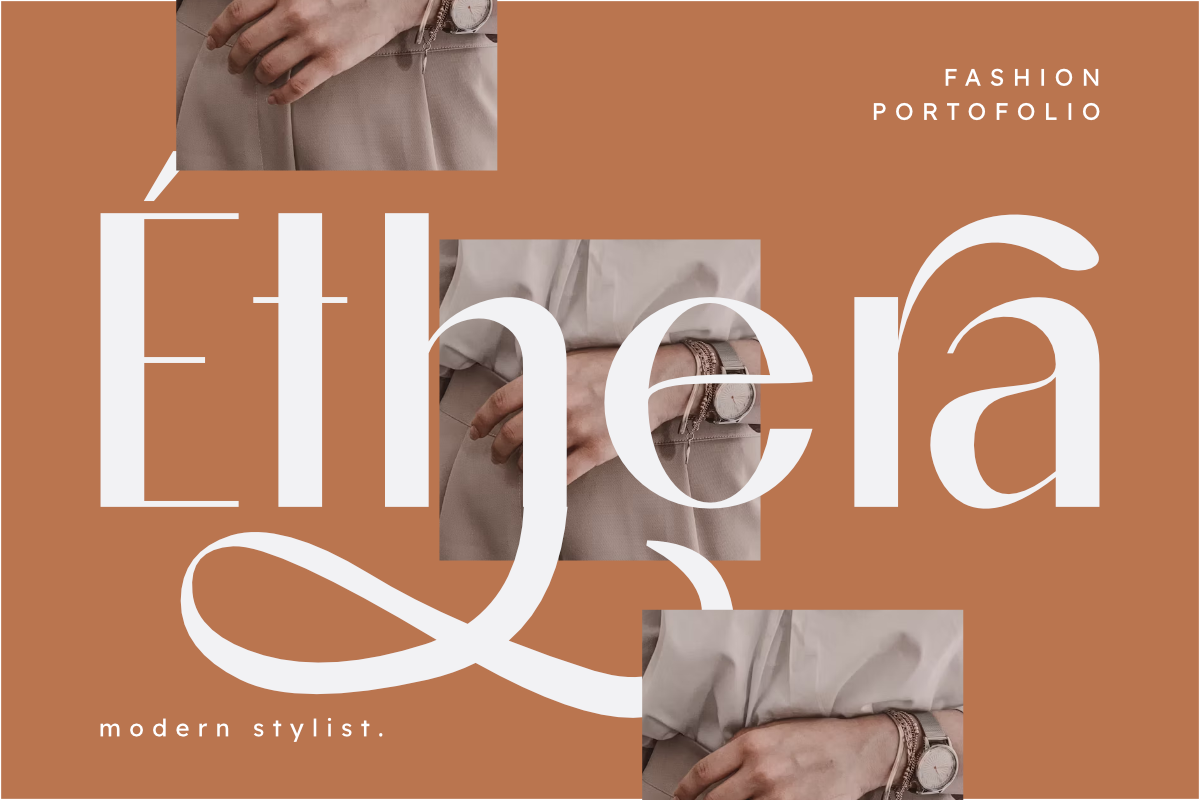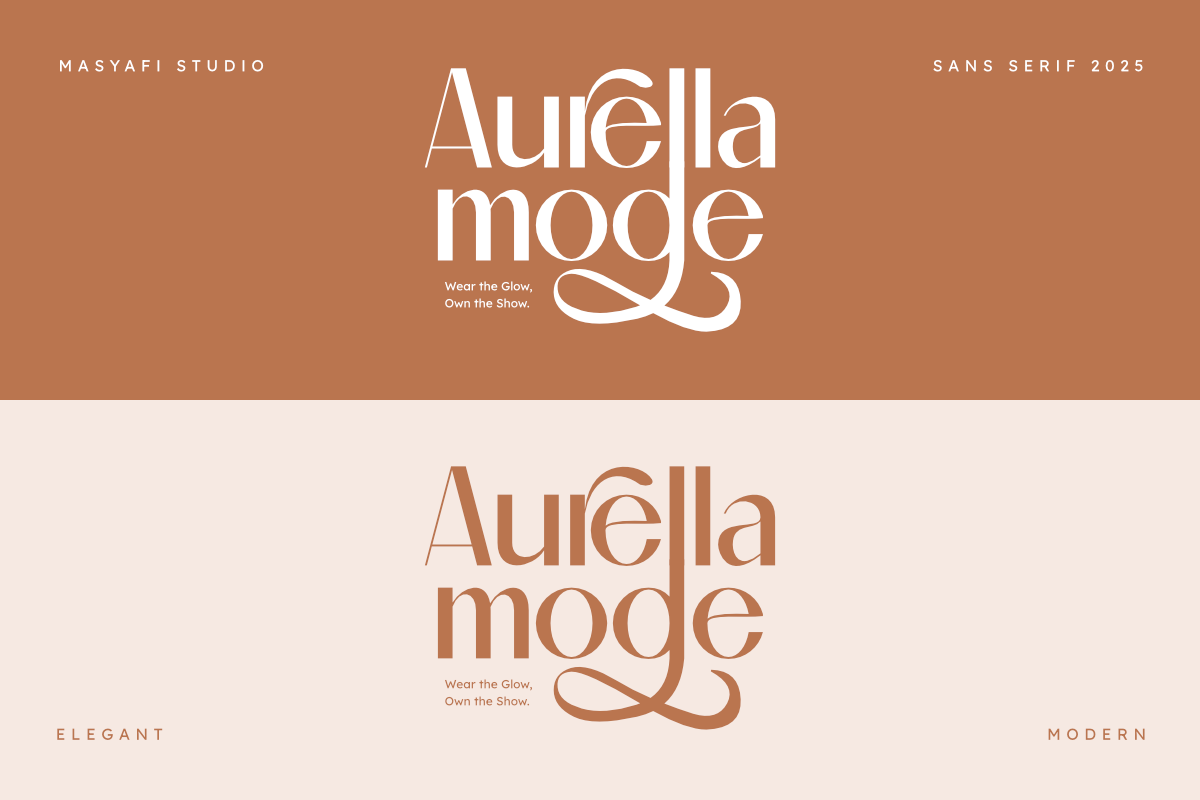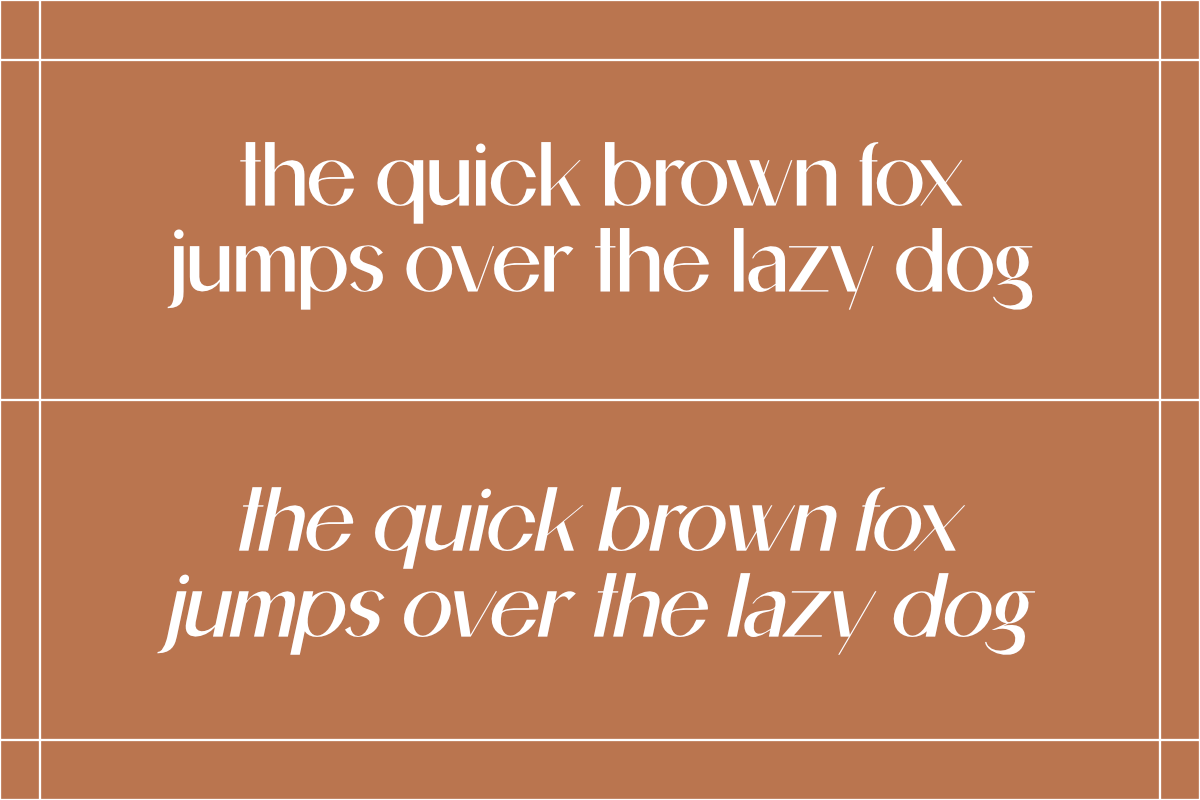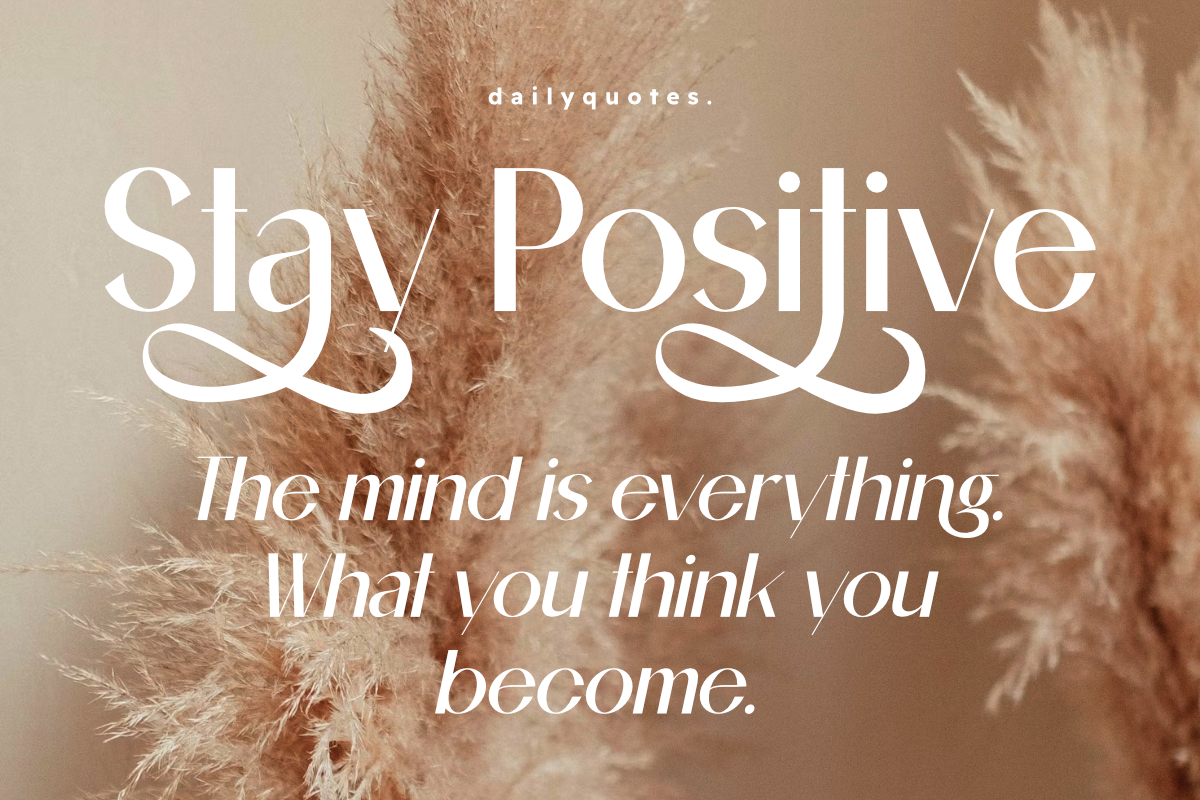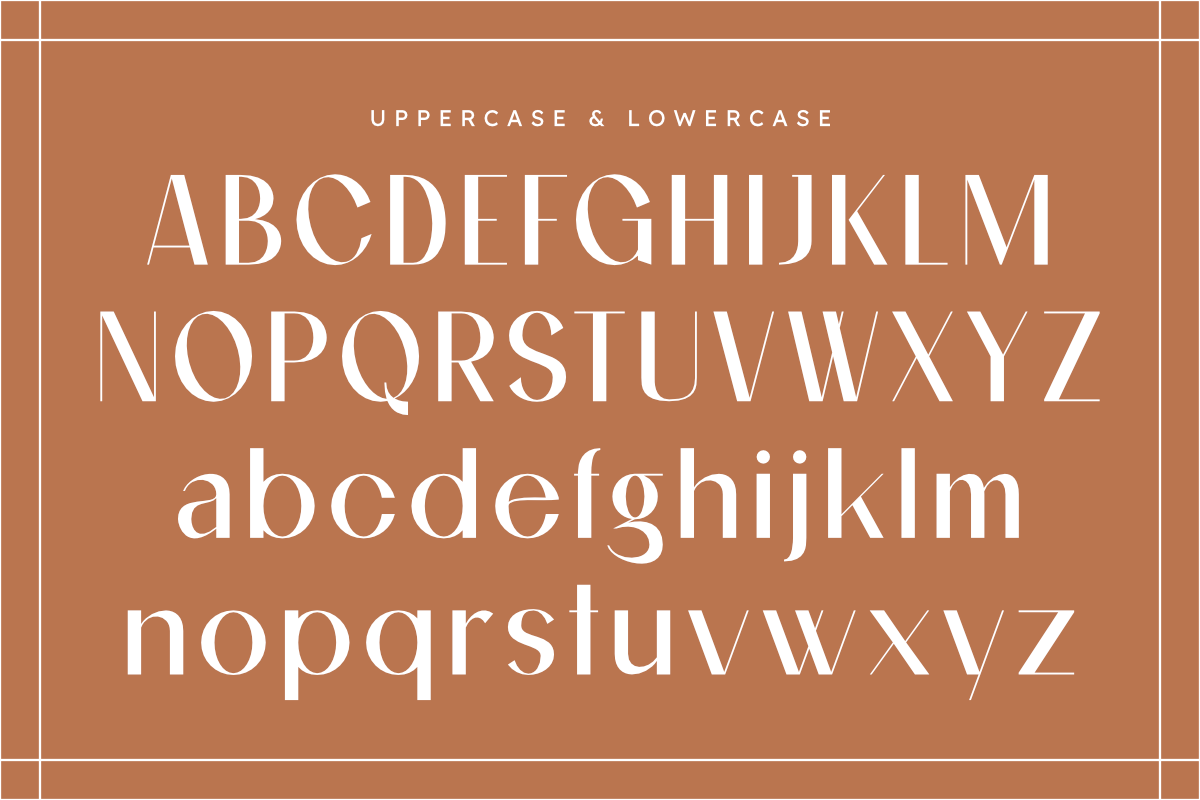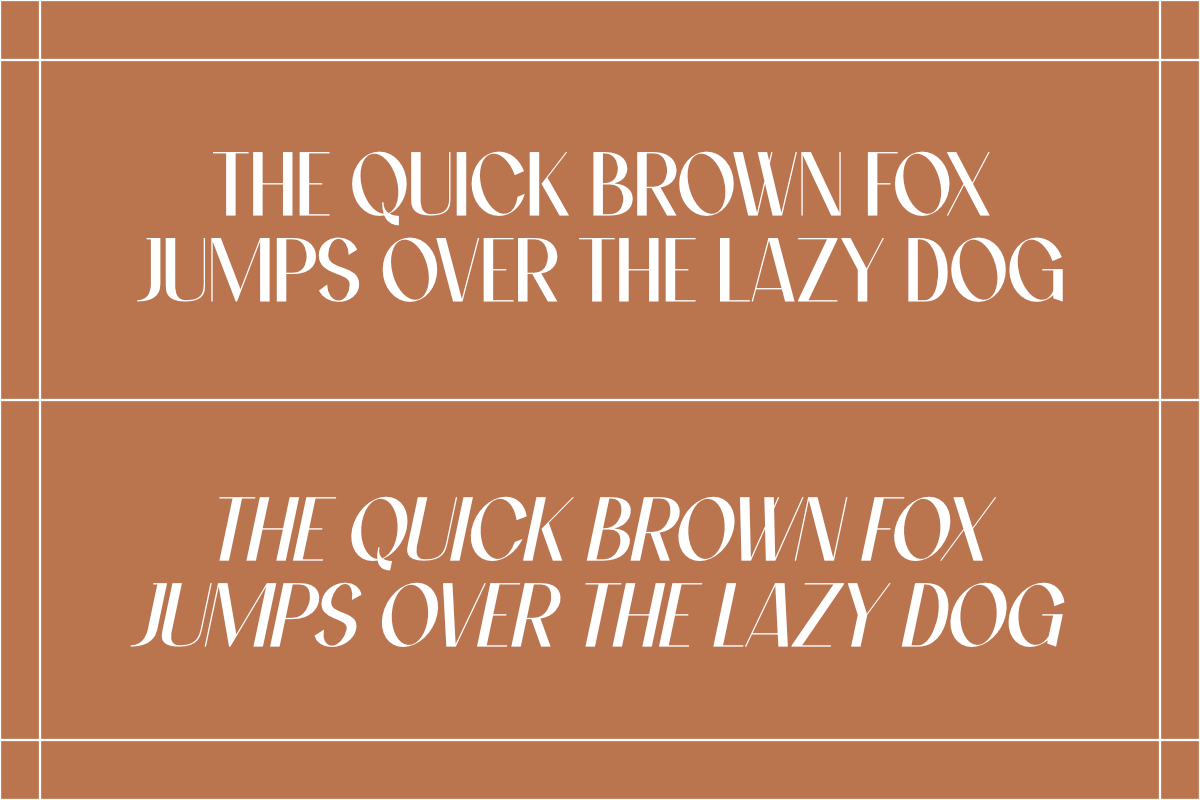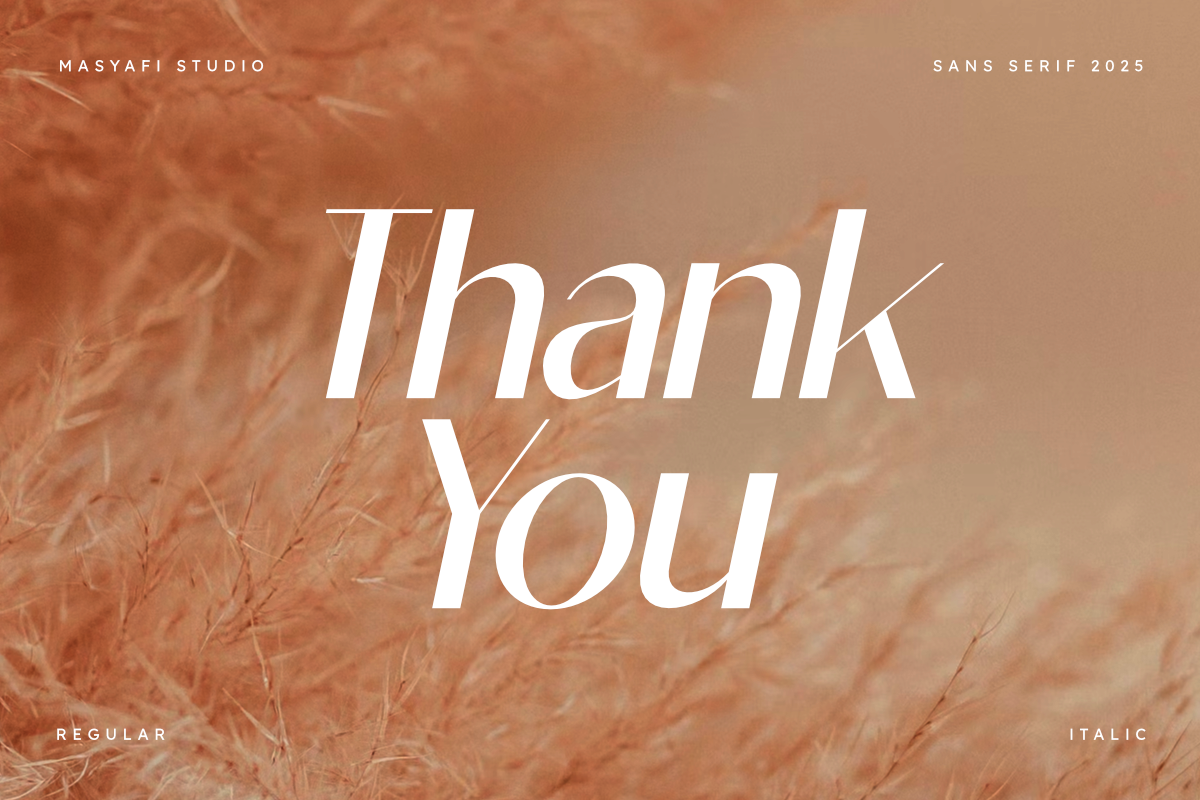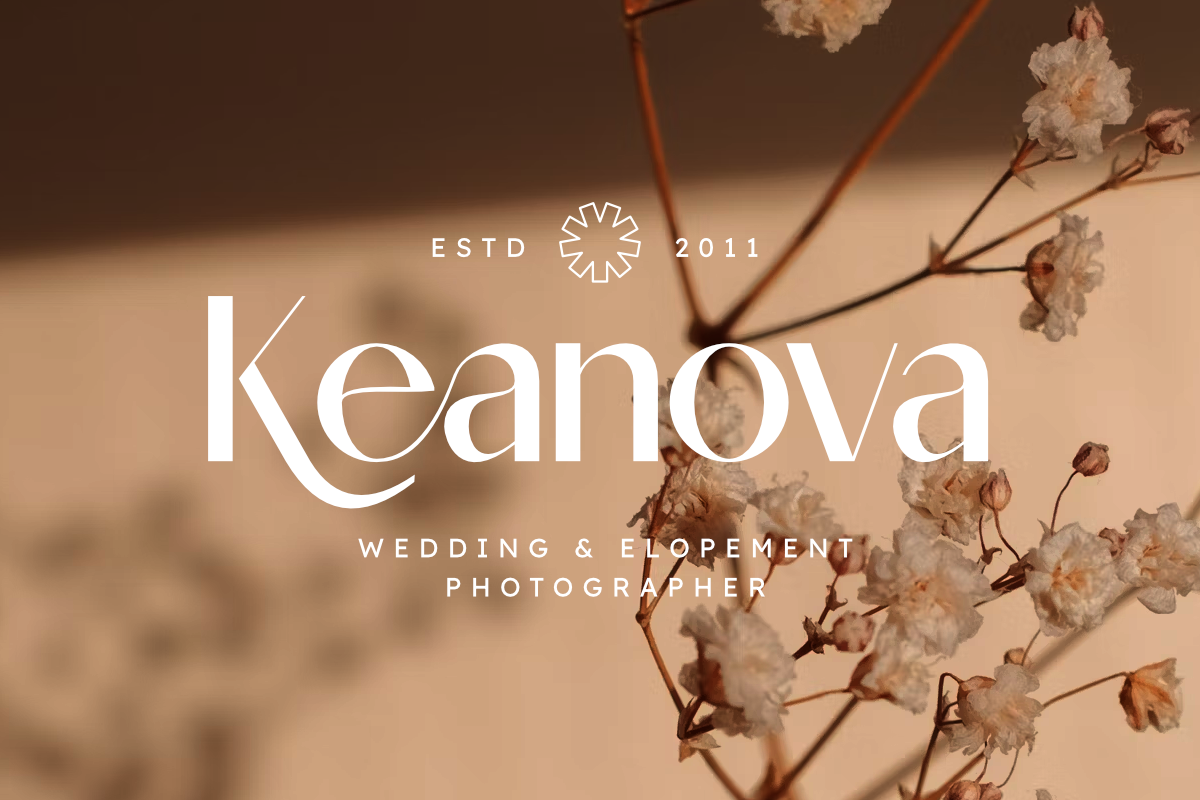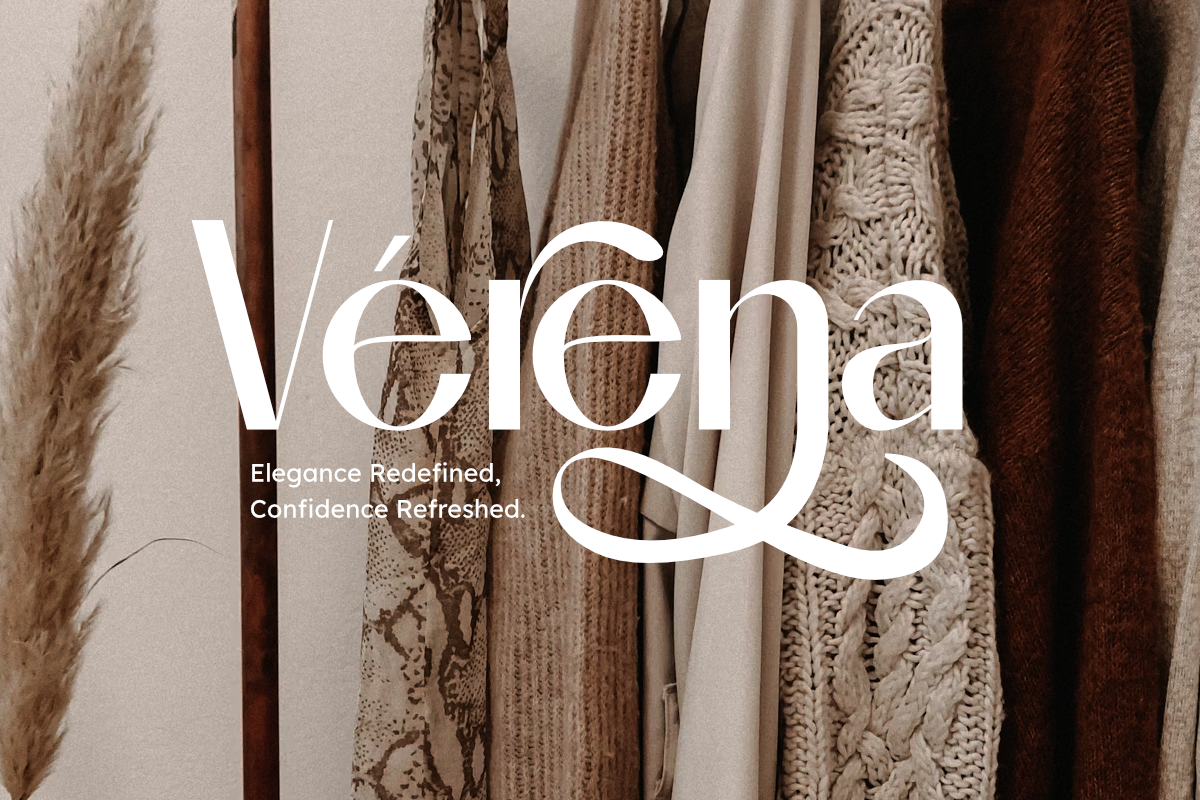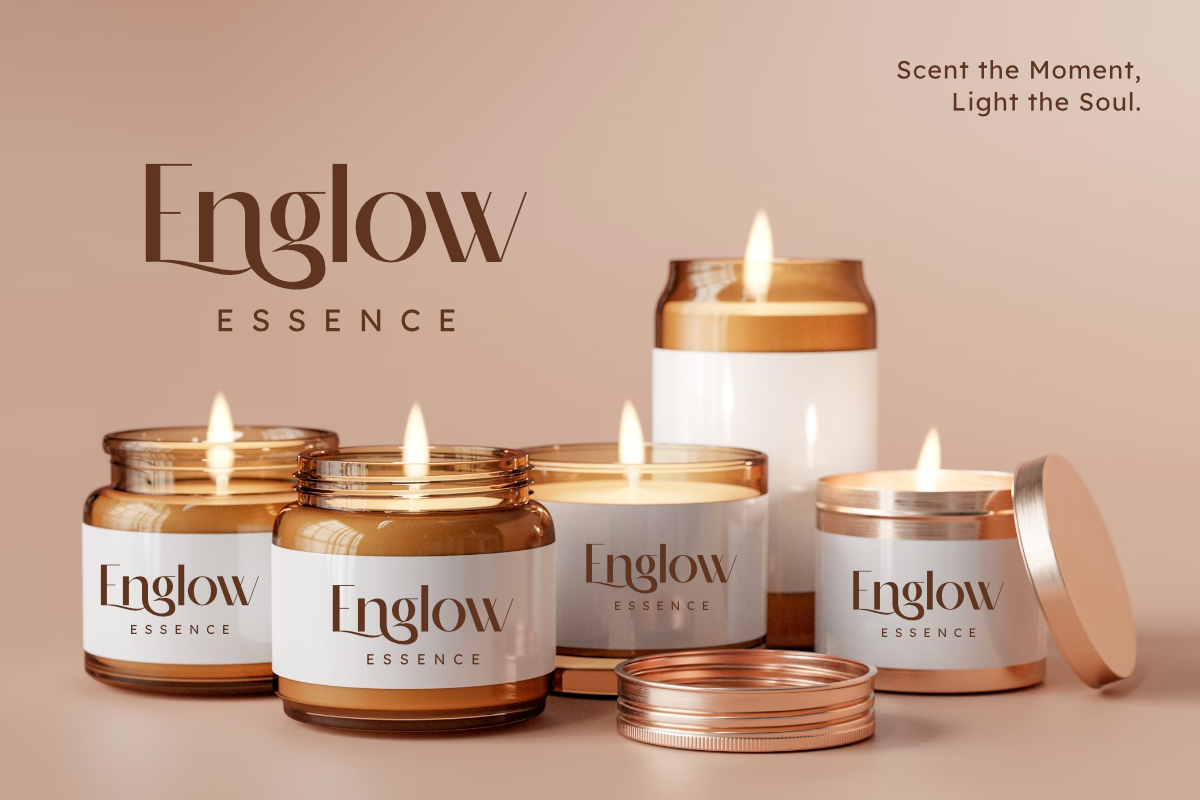
Hydrating Cream - Beauty Sans Serif
Hydrating Cream is a beautiful vintage modern sans serif font. font inspired by vintage elegant style typography. This font is very suitable for branding, logos, marketing, social media, quotes, business cards, printing, web labels and anything that smells elegant, classic, vintage, minimalist and retro.